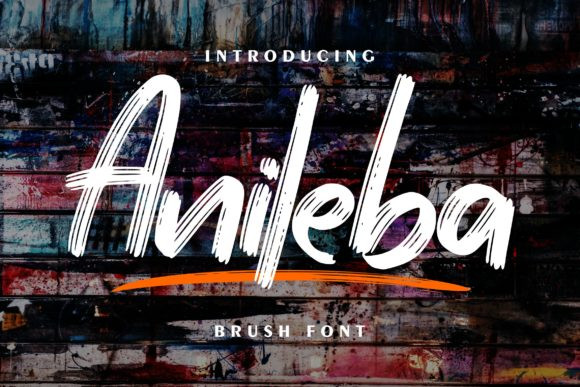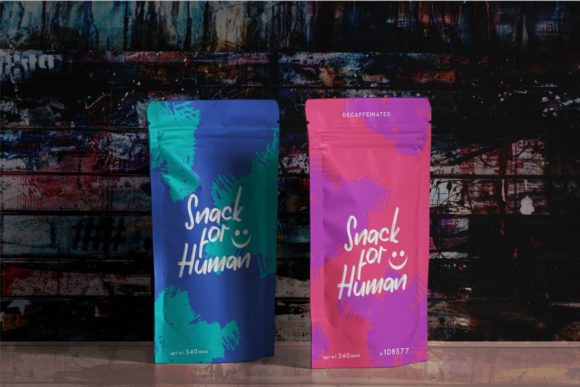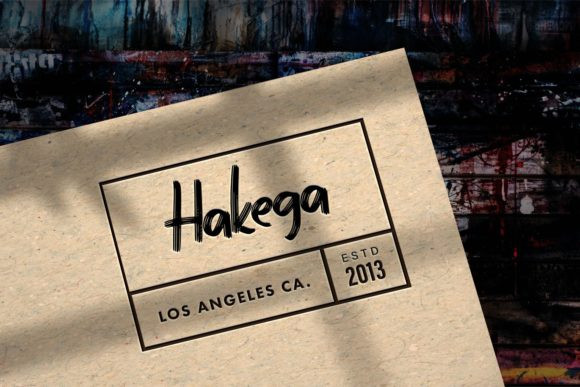
Anileba Font
Anileba is a bold, brushed display font. This original look will appeal to a wide range of crafty ideas, from letterheads and titles, to stationery.